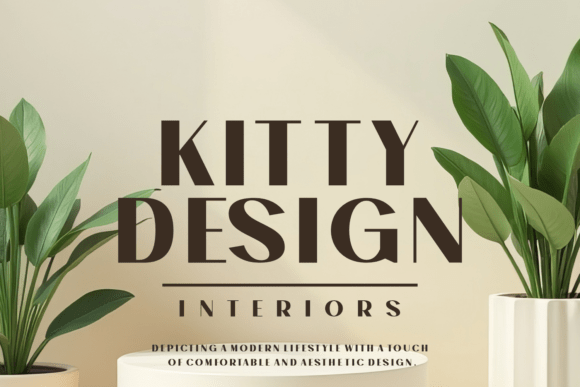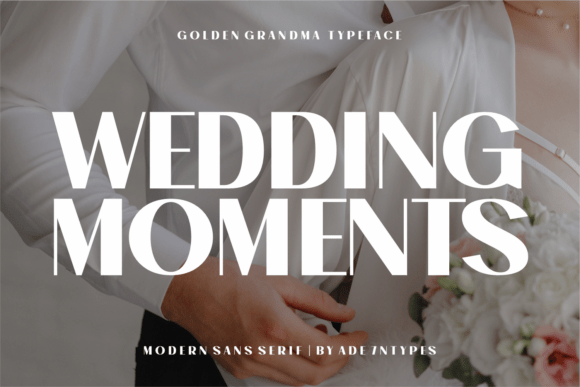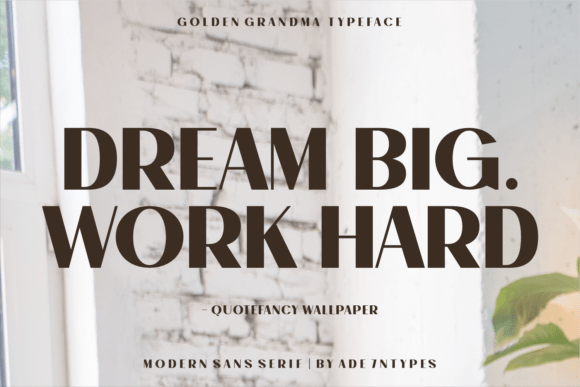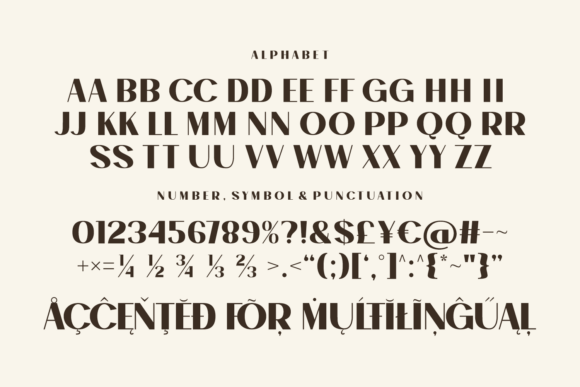
Experience the Timeless Elegance of Golden Grandma Fonts
Step into the world of vintage luxury with Golden Grandma Fonts, a stunning typeface that embodies the essence of upscale retro design and style. This beautifully crafted font is an ode to the elegant eras of the 1920s and 1930s, transporting you to a bygone era of classic Parisian flair. With its distinctive Art Deco typeface, Golden Grandma Fonts is a statement piece that adds a touch of sophistication and glamour to any design.
The Epitome of Retro Chic
Golden Grandma Fonts is more than just a typeface – it’s a design statement that exudes luxury and refinement. Its vintage Art Deco style is reminiscent of classic posters, retro movie posters, and vintage magazines, evoking a sense of nostalgia and timelessness. The font’s unique blend of post-modern and classic elements makes it an irresistible choice for designers and crafters looking to add a touch of elegance to their work.
Unleash Your Creativity with Golden Grandma Fonts
Whether you’re working on a luxury branding project, a retro editorial piece, or a vintage-inspired design, Golden Grandma Fonts is the perfect choice. Its high stature and refined aesthetic complement tall vintage designs, while its elegant lines and curves effortlessly instill sophistication into logos and headlines. The font’s versatility makes it an ideal choice for a wide range of design applications, from luxury packaging to high-end advertising.
Key Features of Golden Grandma Fonts
- Vintage Art Deco typeface: Inspired by the elegant eras of the 1920s and 1930s, Golden Grandma Fonts features a distinctive Art Deco style that’s perfect for retro-inspired designs.
- Luxurious and sophisticated: With its refined aesthetic and elegant lines, Golden Grandma Fonts adds a touch of luxury and sophistication to any design.
- Post-modern and classic blend: The font’s unique blend of post-modern and classic elements makes it a standout choice for designers looking to create something truly unique.
- Retro editorial pieces: Golden Grandma Fonts is perfect for retro editorial pieces, adding an authentic touch to vintage sans serif designs.
- Luxury branding: The font’s high-end aesthetic makes it an ideal choice for luxury branding projects, where a sophisticated and refined image is essential.
Design Tips and Inspiration
To get the most out of Golden Grandma Fonts, try pairing it with other vintage-inspired design elements, such as distressed textures, metallic accents, and classic patterns. Experiment with different font sizes and styles to create visual interest and hierarchy in your design. For inspiration, take a look at classic posters, retro movie posters, and vintage magazines from the 1920s and 1930s – the era that inspired Golden Grandma Fonts.
Golden Grandma Fonts is a true gem for designers and crafters looking to add a touch of luxury and sophistication to their work. With its vintage Art Deco typeface, luxurious aesthetic, and versatile design, this font is sure to become a staple in your design collection. So why wait? Indulge in the French sophistication of Golden Grandma Fonts and experience the timeless elegance of this stunning typeface for yourself.